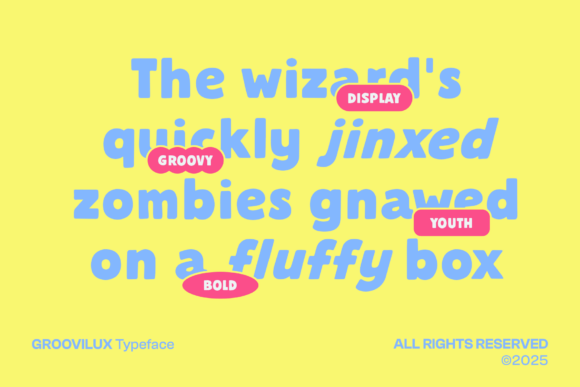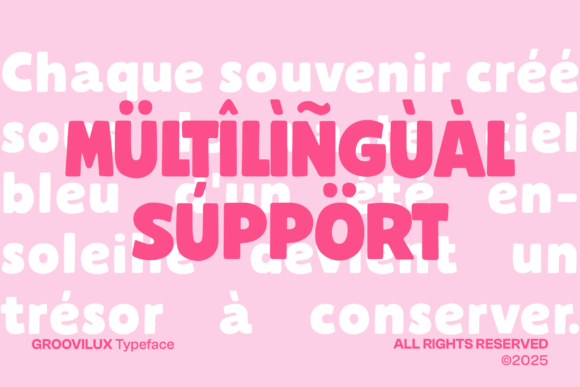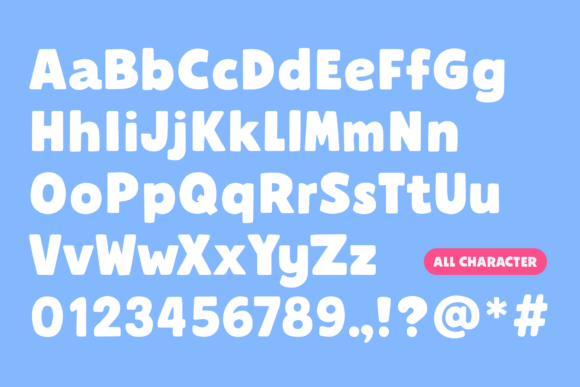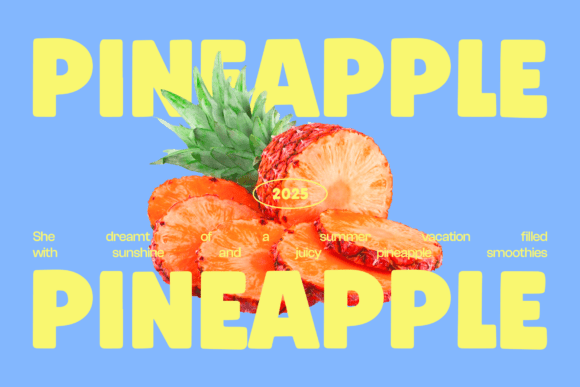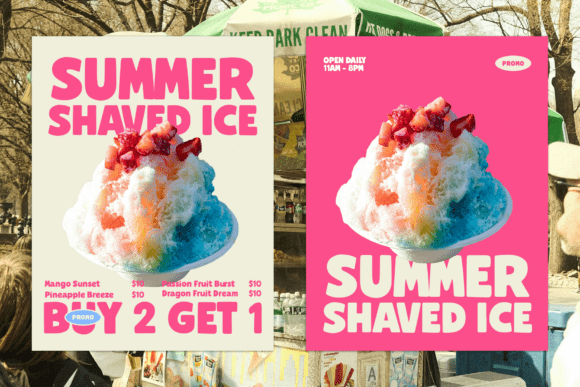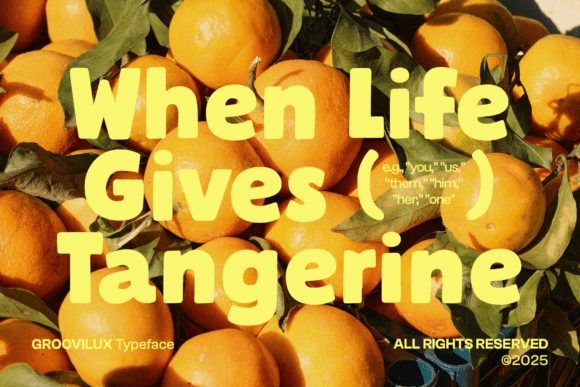
Introduction to Groovi Luy Font
Do you ever find yourself in the middle of a design project, struggling to convey the perfect vibe? Perhaps you’re creating a poster for a music festival, a children’s book cover, or a social media graphic that needs to pop. Whatever your creative endeavor, I’m here to introduce you to a game-changing typography solution: the Groovi Luy Font.
This iconic font is a masterclass in retro-chic design, effortlessly blending the nostalgic charm of the 1970s with a modern twist. Its chunky curves, soft terminals, and vibrant energy make it the perfect choice for projects that demand a playful, joyful, and character-filled aesthetic. Whether you’re a seasoned designer or a budding creative, the Groovi Luy Font is an invaluable design resource that’s sure to elevate your high-quality designs and make them stand out from the crowd.
Key Features of Groovi Luy Font
- Designed to be versatile, the Groovi Luy Font is perfect for use in logos, branding materials, and digital designs.
- Unique characteristics and intricate details make it an excellent design resource for those seeking a high-end look.
Honest Review: Groovi Luy Font
One of the things that stands out about the Groovi Luy Font is its high quality. The characters are crisp and clear, making it perfect for use in creative projects where readability is crucial.
- ✨ High quality design with clear and crisp characters
- ⚠️ Limited character set, which may not be suitable for extended text
- ⚠️ Not as versatile as some other fonts in terms of style and tone
Overall, I’m impressed with the Groovi Luy Font and would definitely consider using it in future design projects. Its high quality and transparent background make it a great resource for designers looking for a clean and professional look.
Tips for Getting the Most Out of Groovi Luy Font
To get the most out of Groovi Luy Font, experiment with different font sizes, colors, and styles. You can also combine it with other design elements to create unique and eye-catching designs.
Groovi Luy Font is perfect for any creative project that requires a unique and stylish touch. Some common use cases include:
Alternatives to Groovi Luy Font
The Great Vibes Font is a high-quality, elegant script font perfect for creative projects that require a sophisticated touch. It’s ideal for use in logos, invitations, and other design elements where a beautiful, handwritten feel is desired.
Compared to Groovi Luy Font, Great Vibes Font has a more refined and polished look, making it suitable for high-end design projects. It’s available for free download and can be used for personal or commercial purposes.
The Alex Brush Font is a beautiful, hand-painted script font that’s perfect for designers looking for a unique and creative touch. It’s ideal for use in packaging, branding, and other design elements where a personal, handmade feel is desired.
Compared to Groovi Luy Font, Alex Brush Font has a more organic and artistic look, making it suitable for design projects that require a touch of whimsy. It’s available for free download and can be used for personal or commercial purposes.
The Pacifico Font is a high-quality, elegant script font perfect for designers looking for a sophisticated and modern look. It’s ideal for use in logos, branding, and other design elements where a clean and simple feel is desired.
Compared to Groovi Luy Font, Pacifico Font has a more minimalist and modern look, making it suitable for design projects that require a clean and sleek aesthetic. It’s available for free download and can be used for personal or commercial purposes.